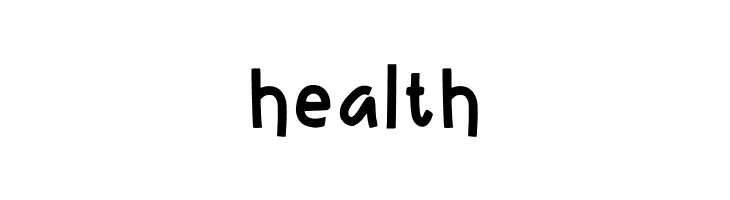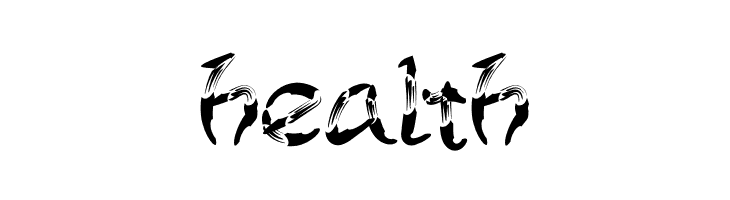
A modern serif font with clean lines and subtle serifs, offering a balanced and readable design.
Playful, narrow font with rounded edges.
A playful, hand-drawn font with rounded, slightly irregular characters.
A bold, brush-stroke style font with dynamic, swirling characters.
A bold, geometric font with a modern and dynamic style.
A bold, modern font with geometric lines and a slightly condensed style.
A playful, snow-capped font with bold, rounded characters perfect for winter themes.
A flowing, cursive font with elegant, connected strokes.